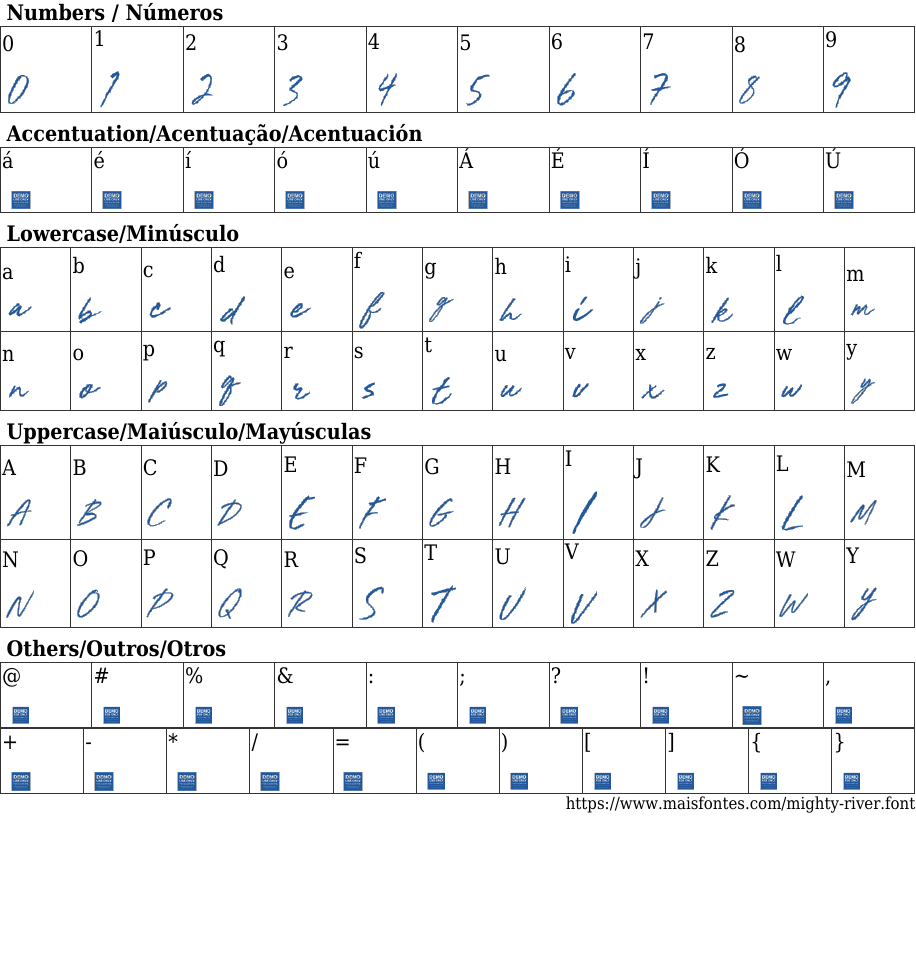
Mighty River Font Dafont Mighty river by blkbk demo font only standard and commercial licenses available here: complete font for purchase blkbktyp products mighty river more info contact: mail@blkbktyp more fonts at: blkbk.shop first seen on dafont: december 02, 2017 updated: december 29, 2017 view all glyphs (232) mighty river demo.ttf. Download mighty river font for windows and mac. mighty river font was designed by blkbk fonts and has been downloaded 29,760 times.
Mighty Font Dafont This font features a dynamic and expressive handwritten style, characterized by its fluid and cursive letterforms. the strokes are smooth and slightly irregular, giving it a natural and personal touch. Mighty river is a bold, flowing script handwritten font by blkbk featuring dynamic expressive strokes, perfect for posters, logos, display designs, and creative projects requiring distinctive handwritten character. Mighty river demo regular font by blkbk fonts. file script name mighty river demo.ttf download free for personal use. this fonts are authors' property, and are either shareware, demo versions or public domain. the licence mentioned above the download button is just an indication. Free download mighty river font file in ttf font type, (mighty river.ttf) from script category with the handwritten style. download truetype font for using on design projects and websites.